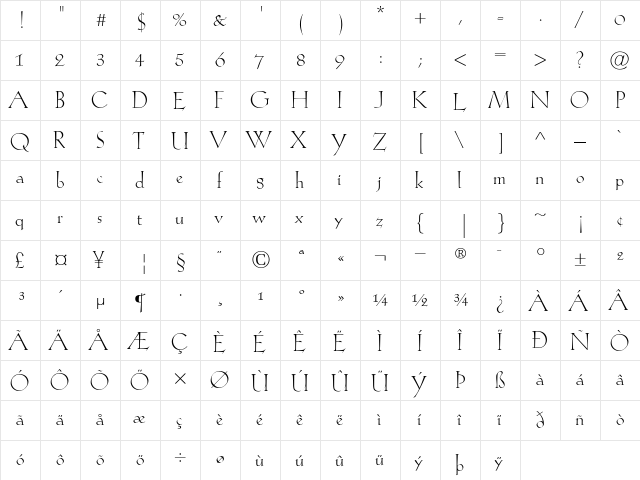
Koch-Antiqua Roman
Design Context for Koch-Antiqua Typeface
Koch-Antiqua takes a measured approach to typography — its balanced proportions and neutral character make it a reliable workhorse for both digital and print work.